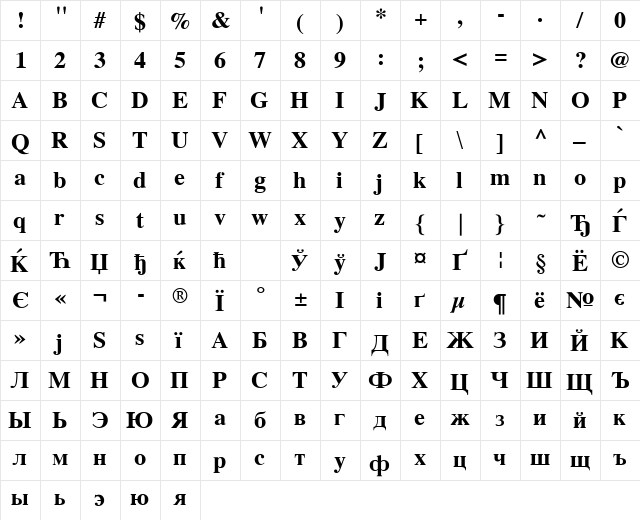
Vremya Bold Font Preview
Vremya Bold
Design Context for Vremya Typeface
Vremya offers clean, dependable letterforms without strong stylistic allegiance, making it a practical choice for designers who need flexibility. The heavy weight commands attention and anchors typographic hierarchies.